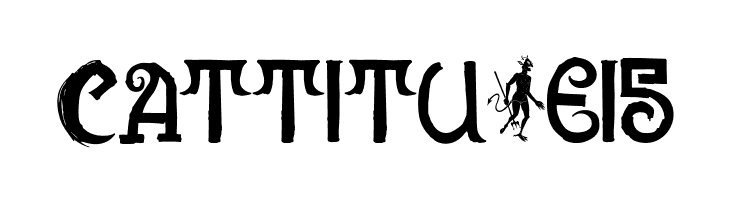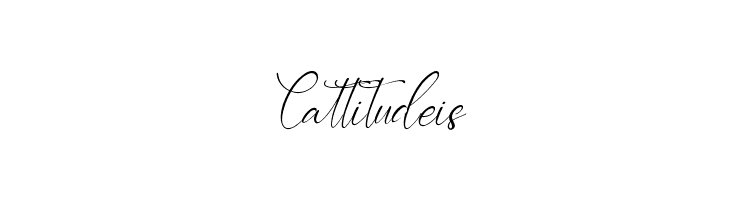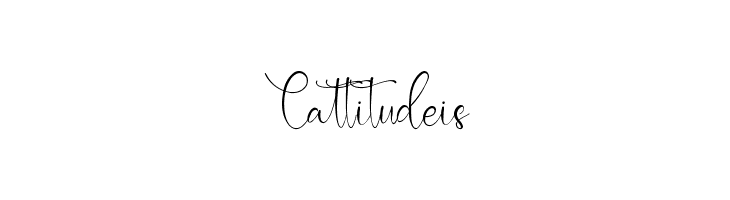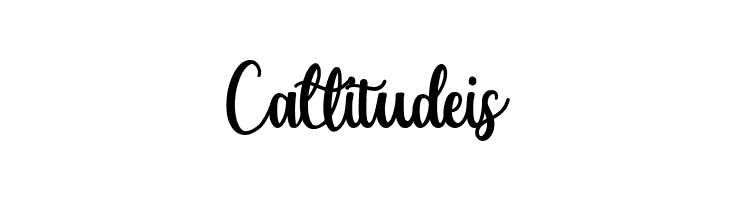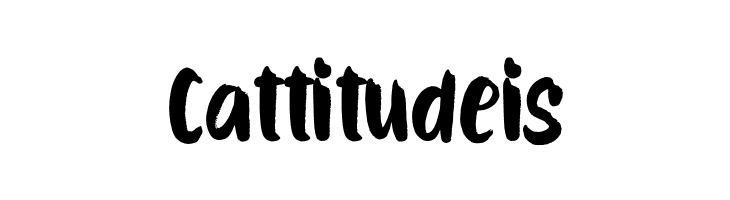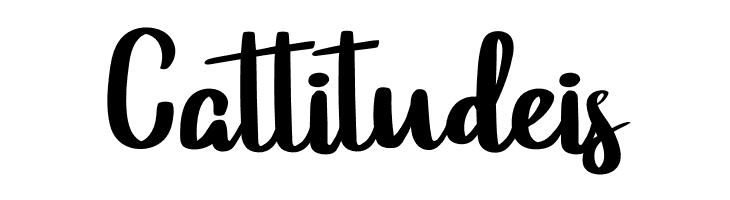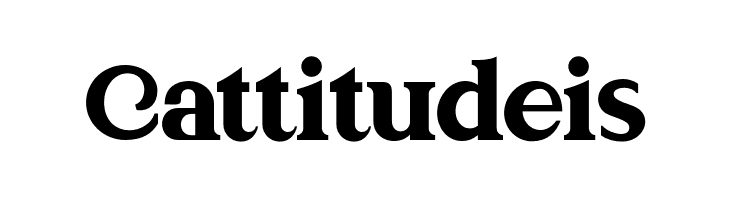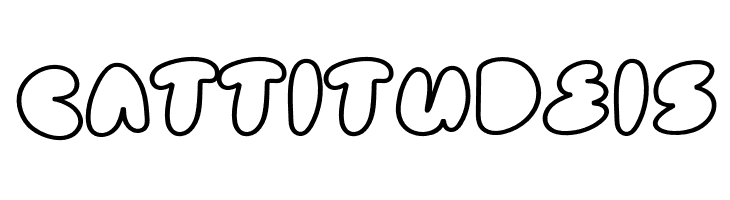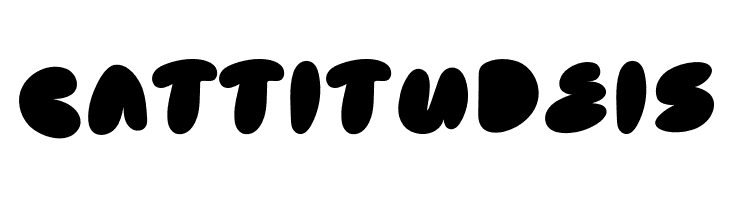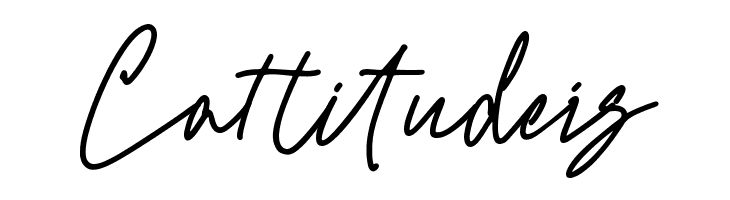
A playful, hand-drawn font with rounded edges and unique coffee cup icons.
A dynamic and expressive handwritten font with fluid, cursive strokes.
A bold, playful script font with a handwritten style.
A modern, geometric font with bold, sharp edges and a futuristic style.
A bold, sketch-like font with a playful and artistic style.
A playful, hand-drawn font with irregular strokes and artistic charm.
A bold, brush-style font with an energetic and handcrafted appearance.
A bold, distressed font with a rugged, grunge-like appearance.
An elegant and dynamic italic typeface with moderate contrast and slightly condensed characters.
A modern serif font with bold, elegant curves and high legibility.
A bold, modern serif font with strong, uniform strokes and elegant lowercase letters.
A dynamic semi-bold italic font with a modern and elegant style.
A bold, 3D-effect font with strong shadows and a playful, modern style.
Bold, geometric font with a strong, modern presence.
A bold, classic serif font with a modern twist, featuring strong strokes and clear characters.
An elegant, flowing script font with intricate loops and modern flair.
A bold, hand-painted style font with a dynamic and artistic appearance.
A bold, playful font with decorative curves and sharp edges.
A playful, hand-drawn font with characters in pebble-like shapes.
A lively and flowing script font with elegant curves and smooth connections.
A bold, decorative font with intricate details and high contrast.
A bold, decorative font with ornate flourishes and a vintage style.
A dynamic, cursive handwritten font with fluid strokes and a slanted style.
A graceful and flowing script font with elegant, fluid letterforms.
A graceful script font with flowing, connected letters and elegant flourishes.
An artistic script font with elongated, flowing strokes and a handwritten appearance.
A pixelated, blocky font with a retro digital aesthetic.
A bold, decorative font with a unique crosshatch pattern and geometric structure.
A rough, sketch-like font with dynamic, hand-drawn strokes.
A playful, rounded outline font with a bubbly, whimsical style.
A playful, bold font with rounded, bubble-like characters.
A bold, playful script font with a dynamic, handwritten style.
A bold, dripping font with a spooky, playful aesthetic.
A playful, bold handwritten font with smooth, rounded strokes.
A bold, dripping font with a spooky, playful aesthetic.